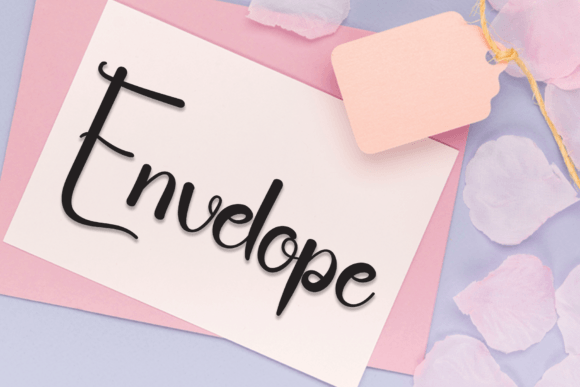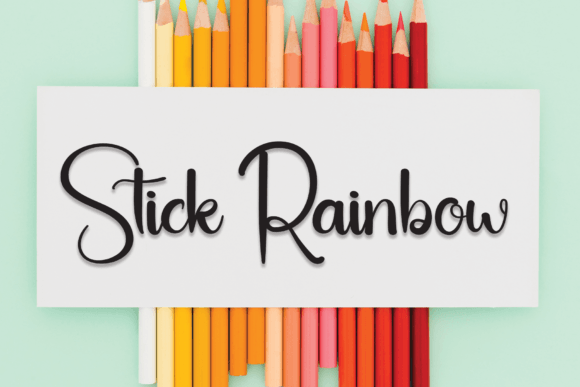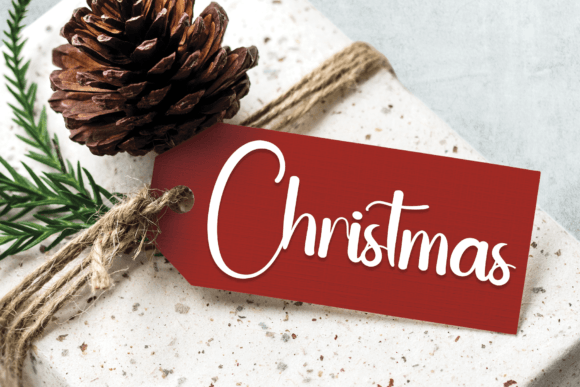
Breakout Font
Add a simple and friendly vibe to your creative projects with the Breakout font. This handwritten script is versatile and perfect for various applications. Whether you’re designing crafts, digital content, presentations, or greeting cards, this font is an excellent choice.
The Breakout font offers a clean and approachable style. Its natural strokes and clear characters make it easy to read. This font is ideal for both casual and formal designs, giving your work a personal touch.
Each letter in the Breakout font is crafted to balance simplicity with charm. This ensures your projects look attractive and remain legible. It works well for titles, quotes, invitations, and decorative text.
Despite its simple design, the Breakout font is highly readable at various sizes. Whether used for bold headlines or subtle details, it adds a friendly and welcoming look to your creations.
Using this font will help your projects stand out with a memorable and personal style. If you want your designs to be clear, charming, and versatile, the Breakoutfont is a great option.
In summary, the Breakoutfont fits many creative needs. From crafts and presentations to greeting cards and digital designs, it brings warmth and clarity. Download it today and create lovely, adaptable designs with this simple handwritten script.